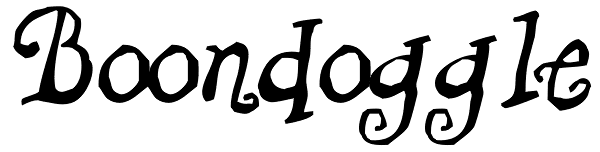
Boondoggle
I created this font to capture the innocence and playfulness of doodle lettering that is created in schools everywhere. Typographic rules are non-existent and the characters are sometimes oddly and incorrectly shaped but that's exactly what gives it...